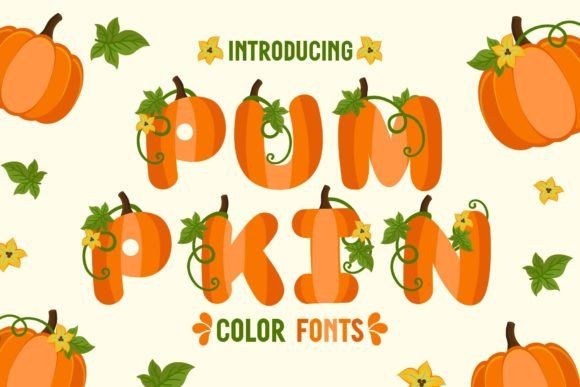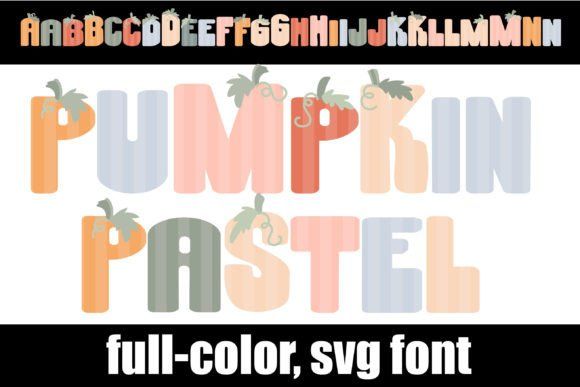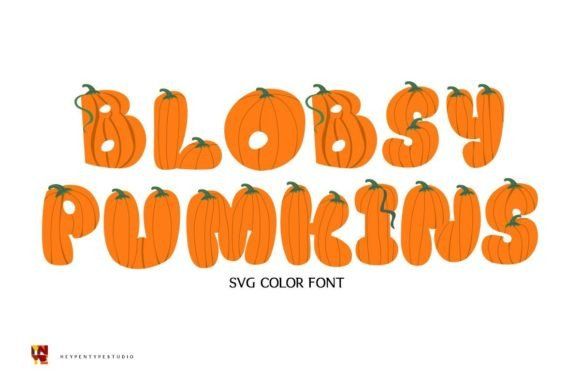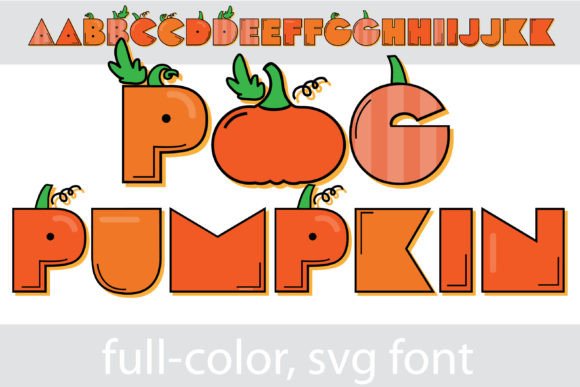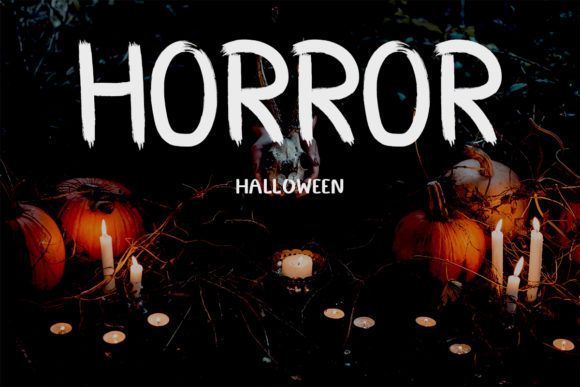
Best Spooky Color Fonts for Halloween Designs
The fastest way to give an October design a recognizable theme is often the lettering. Spooky color fonts combine type, illustration, texture, and a ready-made palette, letting a simple phrase become the main visual on a shirt, invitation, sticker, poster, or social post.
The catch is that Halloween color fonts vary wildly. Some are cheerful alphabets covered in candy and pumpkins. Others use skulls, monsters, shadows, or distressed details to create a darker mood. They also require more attention to software compatibility than an ordinary OTF or TTF font.
I’ve divided these 13 picks by mood and practical use rather than placing them in an arbitrary ranking. My goal is to help you find lettering that fits the audience, format, and production method of your project—not simply the busiest font on the page.
- Best overall: Spooky by Fox7
- Best retro-cute option: Ghost Magic Color
- Best pastel option: Pumpkin Pastel
- Best darker option: Horror
- Best for mixed print and cutting workflows: Halloween Night
How I Picked These
I compared these spooky color fonts by display readability, audience fit, built-in illustration quality, software compatibility, production flexibility, and how well each option keeps its character when used for shirts, stickers, invitations, posters, and social graphics.
Cute and Playful Halloween Color Fonts
1. Spooky
Spooky by Fox7 is my pick for a broadly useful Halloween color font. Its lettering is decorative enough to establish the theme immediately, but it does not lean so heavily into horror that it becomes unsuitable for children’s designs.
I’d use this for short, high-impact phrases such as “Boo Crew,” “Trick or Treat,” or “Spooky Season.” Let the font carry the illustration and keep surrounding graphics restrained.
Best for: Halloween shirts, party signs, stickers
Key features: OpenType-SVG format, colorful illustrated glyphs, strong Halloween theme
2. Ghost Magic Color
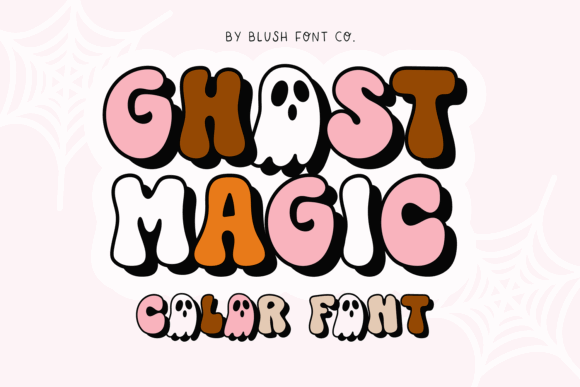
Ghost Magic Color has a chunky, dimensional look that lands somewhere between retro bubble lettering and cute Halloween illustration. It has more than 190 visible favorites and a five-star review on its listing.
I like this one for friendly ghost themes, classroom projects, and pastel Halloween graphics. The substantial letter shapes should remain recognizable when a design is reduced for stickers or social media, although I would still avoid setting long paragraphs in it.
Try pairing it with a plain geometric sans serif for dates, locations, or supporting information. The contrast keeps the decorative type from taking over the entire layout.
Best for: Classroom printables, kids’ apparel, social graphics
Key features: Chunky display letters, dimensional styling, cute ghost theme
3. Halloween Candy
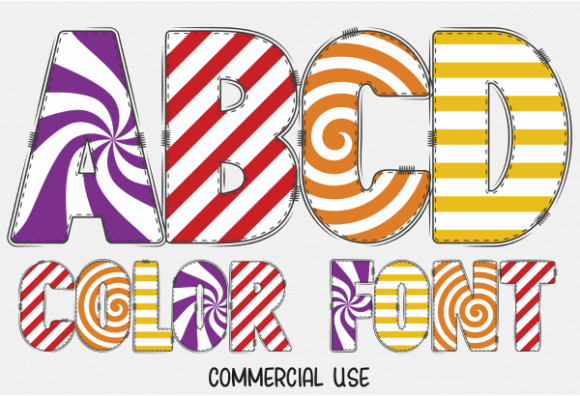
Halloween Candy is a cheerful detailed alphabet built for projects that should feel festive rather than frightening. The design suits school flyers, treat-bag labels, party invitations, and book-cover lettering. A separate black version is described as compatible with Cricut Design Space and other cutting machines.
My take: this is one of the better options when candy is already central to the concept. Using it alongside several additional candy illustrations could make a composition feel crowded. Instead, set one short headline in the font and give it plenty of plain background space.
The style is especially appropriate for elementary-school events and family-friendly promotions where blood, skulls, and horror lettering would feel misplaced.
Best for: Treat bags, school flyers, children’s invitations
Key features: Candy-inspired details, colored alphabet, black cutting-machine version
4. Happy Halloween
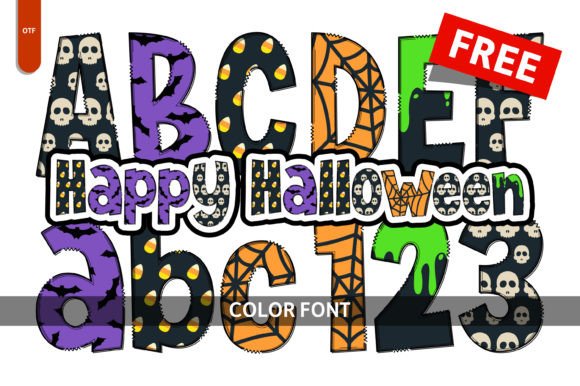
Happy Halloween by Imagination Switch decorates its characters with familiar seasonal elements, including bats, pumpkins, and skulls. The result feels more like an illustrated alphabet than a conventional typeface.
I’d grab this for designs where the wording itself needs to function as the central artwork. It could make a simple name, short greeting, or monogram feel finished without a separate clip-art bundle.
Because each letter contains visual detail, spacing is important. Avoid squeezing characters together or covering them with heavy outlines. A little extra tracking can help each Halloween element remain distinct.
Best for: Invitations, greeting cards, personalized names
Key features: Illustrated characters, bats and pumpkins, playful color treatment
Which spooky color font is best for kids?
Ghost Magic Color, Halloween Candy, Happy Halloween, and Monster Ground are the strongest child-friendly options in this selection. Their rounded shapes and illustrated details feel festive rather than frightening.
How should I pair a decorative Halloween font?
Use the decorative font for a short headline and pair it with a clean sans serif for supporting text. This keeps dates, locations, prices, and instructions readable while preserving the Halloween font as the focal point.